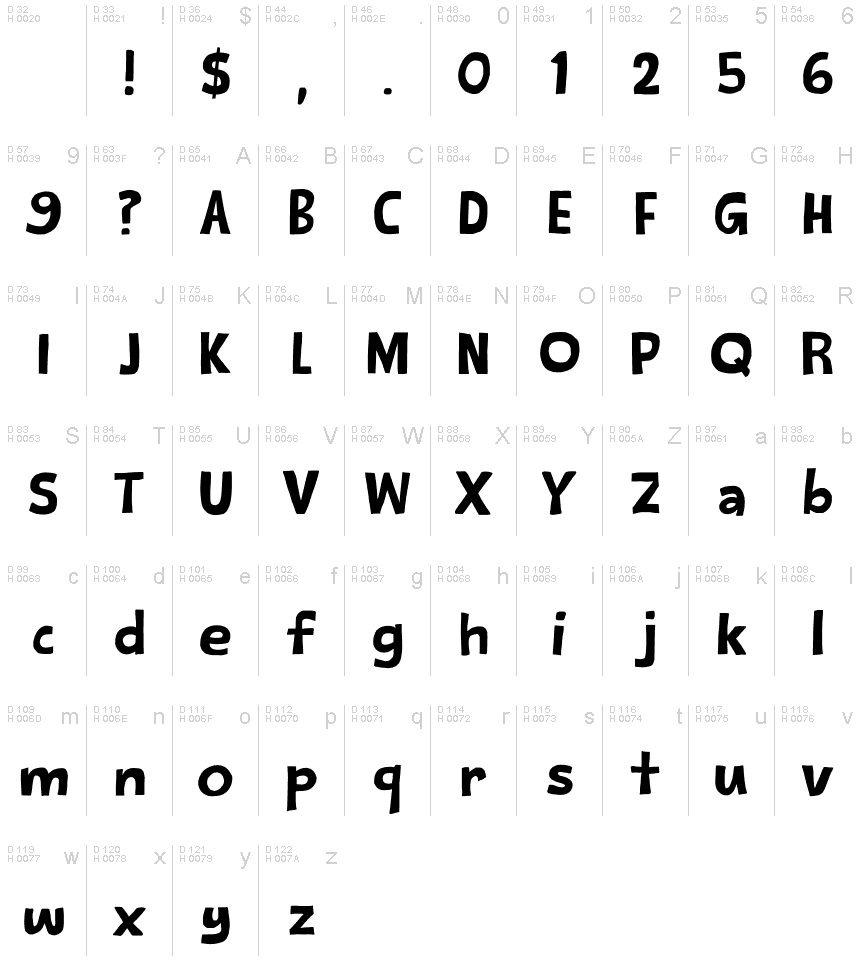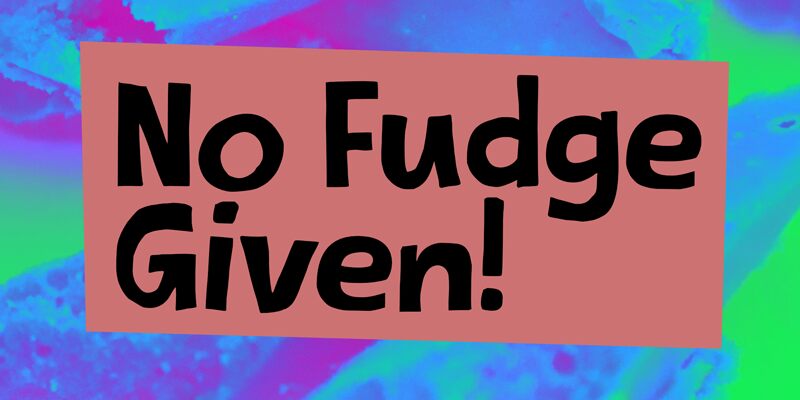
No Fudge Given DEMO Regular
No Fudge Given is a lively display font that packs a playful punch, designed by the creative D K. With its semi-bold weight and comic style, this font exudes an unapologetic charm that's hard to ignore. The rounded edges and whimsical curves give it a friendly appearance, while maintaining an assertive presence on the page.
The aesthetic appeal of No Fudge Given lies in its casual yet bold demeanor, making it perfect for projects that require a touch of humor and personality. Whether it's for eye-catching headlines, spirited advertising campaigns, or engaging children's book titles, this font brings a dynamic flair to any creative work.
Its style radiates approachability and fun, with letters that seem to dance with irreverent joy. This makes No Fudge Given ideal for designs intended to stand out and speak directly to the audience with confidence and wit.
Embrace the distinctive nature of No Fudge Given in your next project where character is key and a standard typeface just won't do.